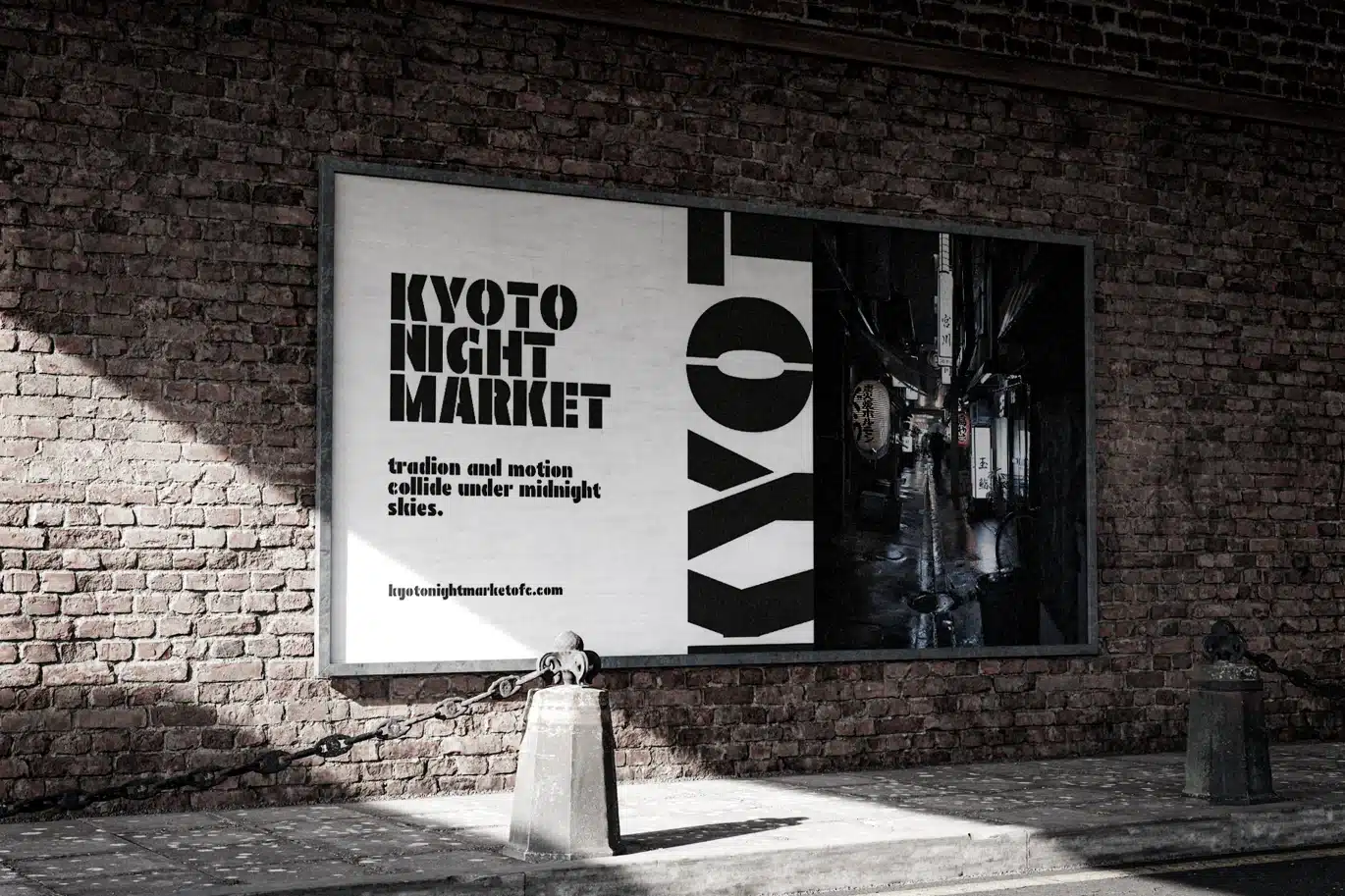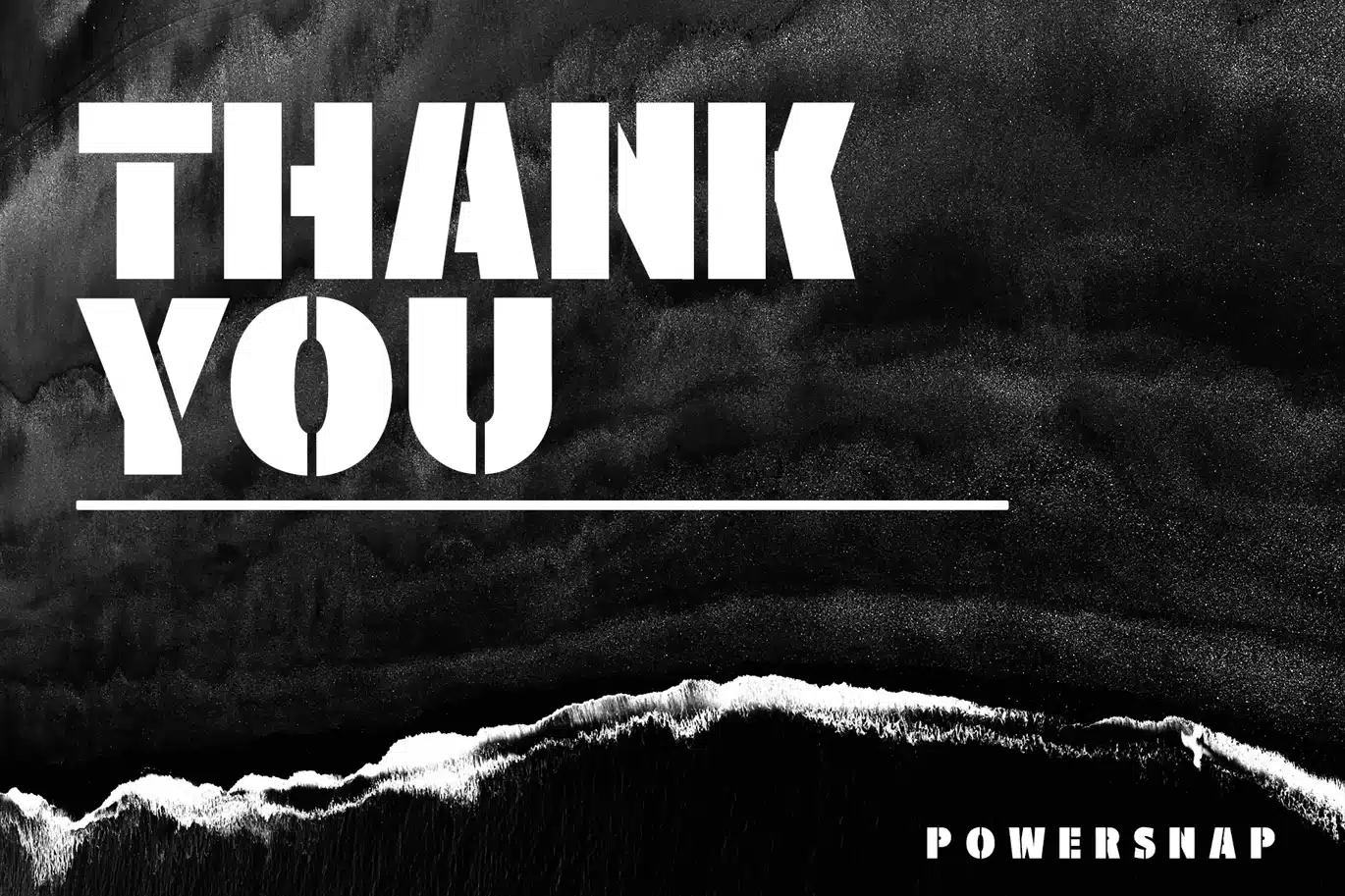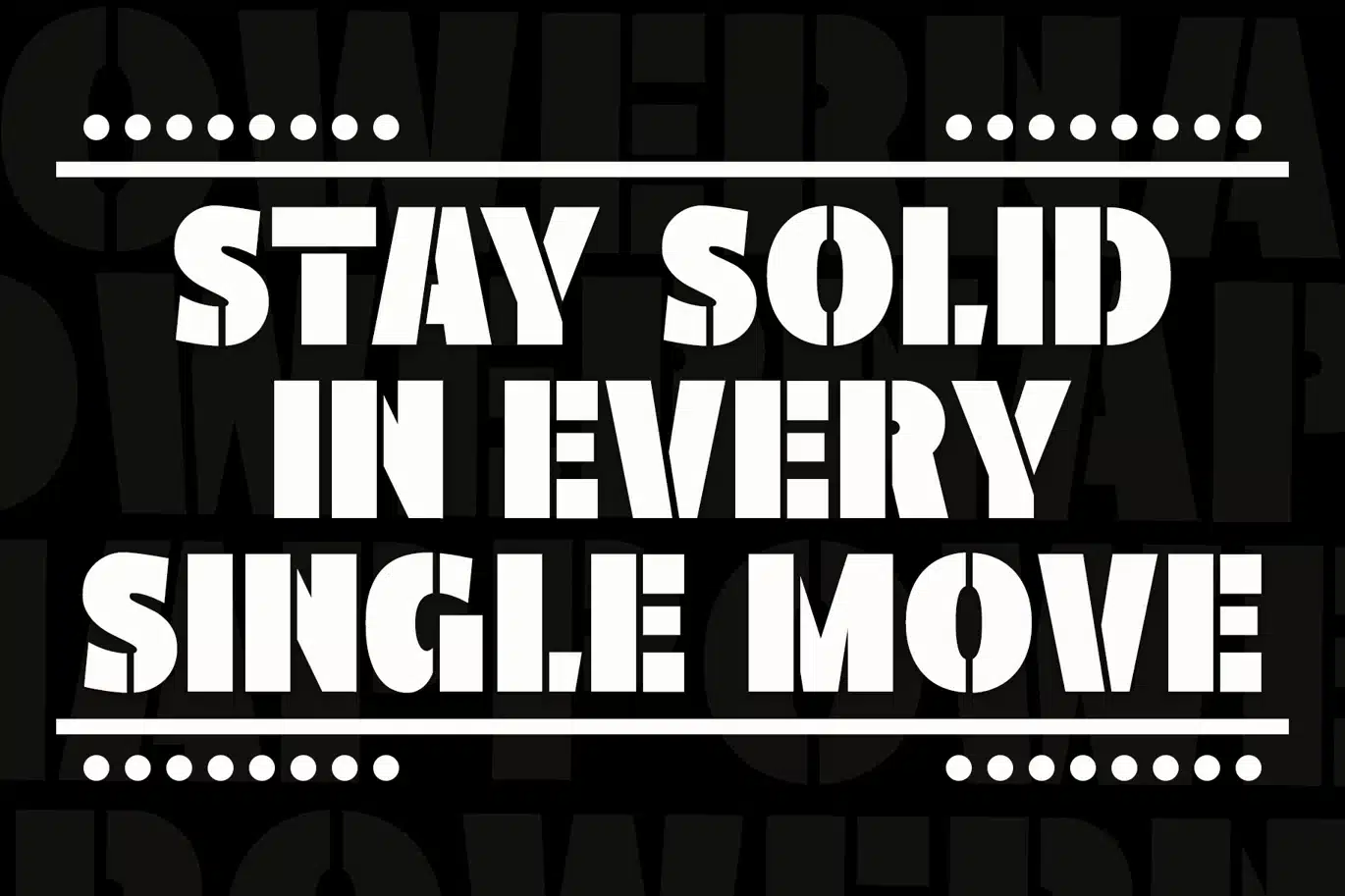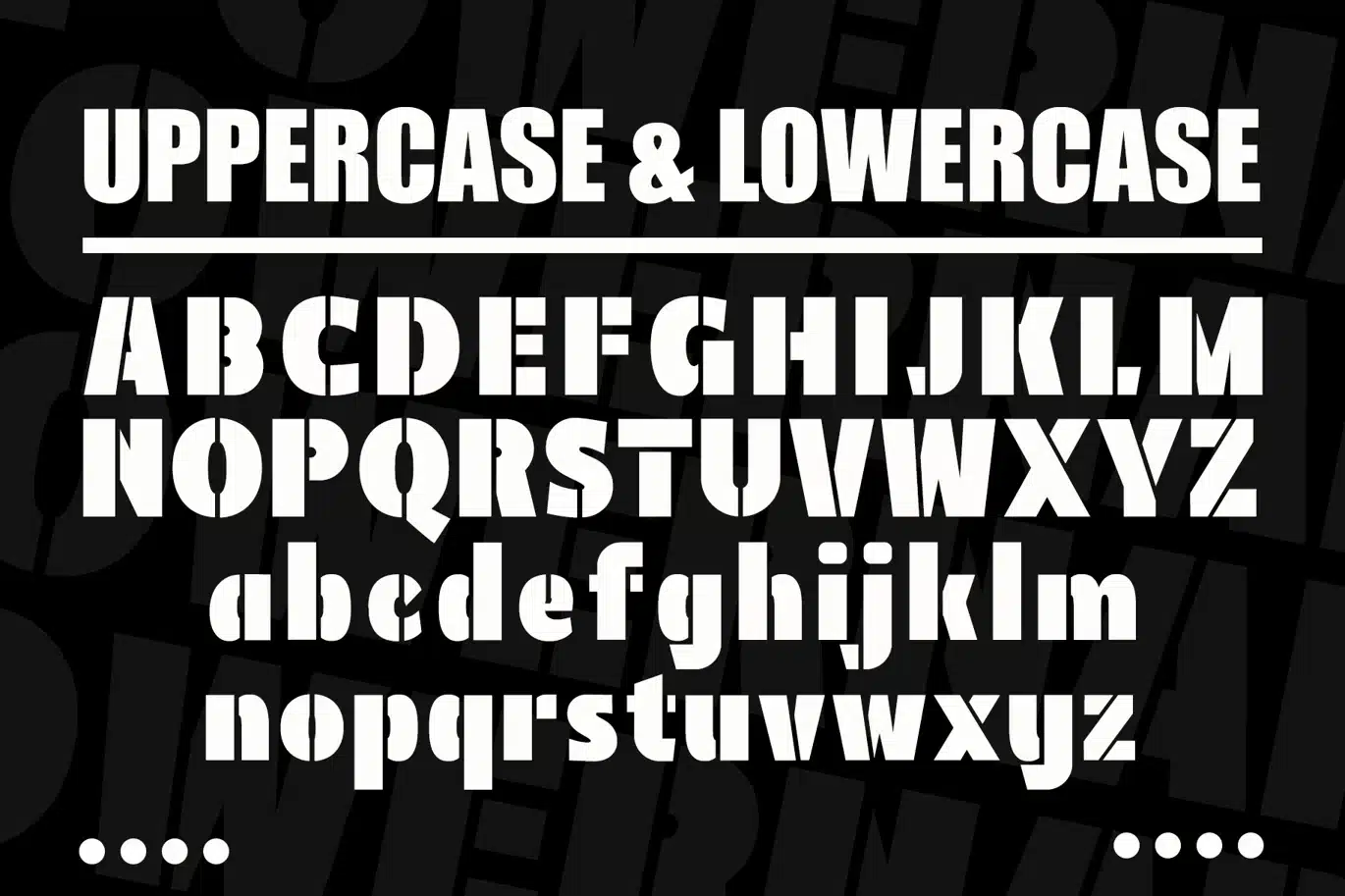
Stencil Font – Powernap
Powernap is a bold stencil display font designed with strong geometric shapes and sharp cut-out details. The structured letterforms create a powerful and industrial visual style, making it highly recognizable in large-scale compositions.
Its high contrast and solid construction ensure excellent visibility, especially in headlines and impactful layouts. The stencil cuts add a tactical and utilitarian character while maintaining clarity across different applications.
Powernap is suitable for posters, branding, packaging, signage, editorial layouts, and military-inspired designs that require a bold and commanding typographic presence.